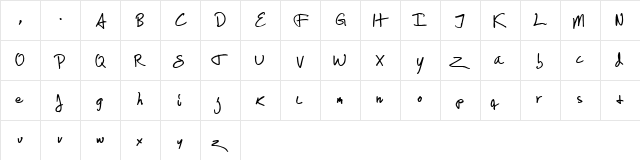
Scrawlies Regular
Design Context for Scrawlies Typeface
Scrawlies is a composed and adaptable typeface that performs quietly and consistently across a wide range of design contexts.